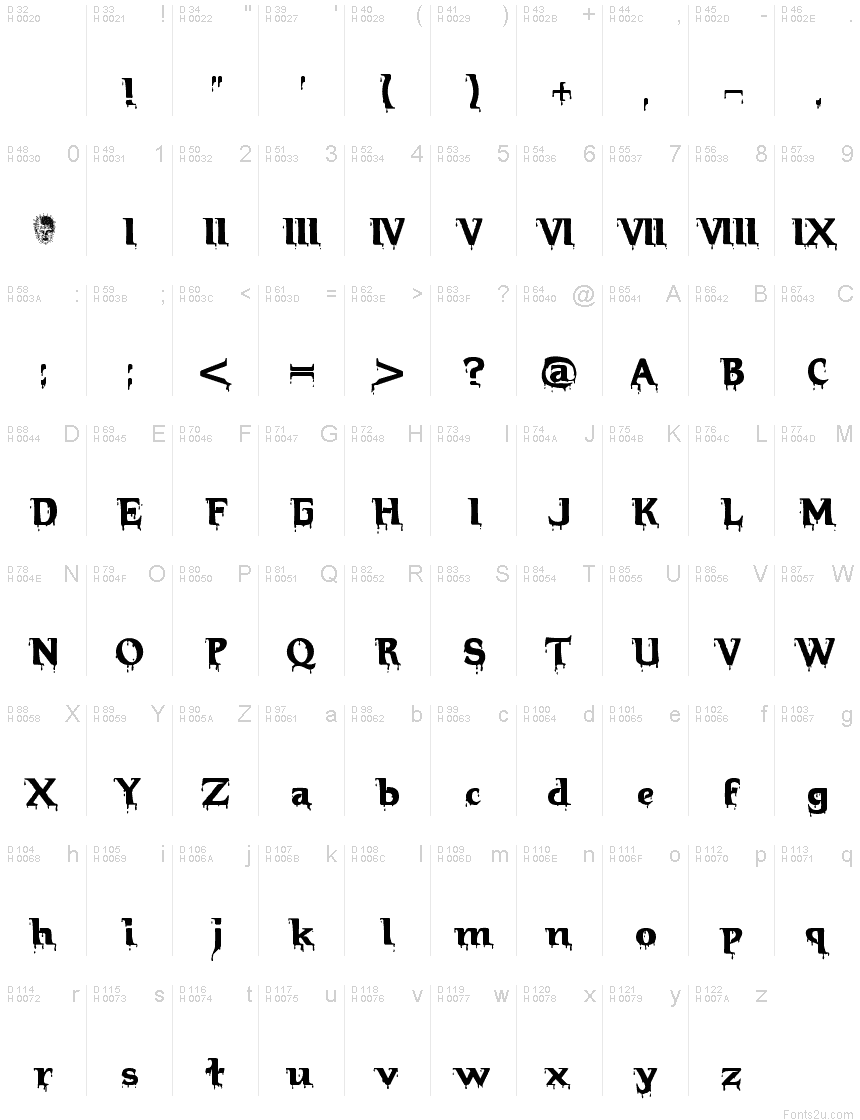
Hellraiser Bloody
Hellraiser Bloody font by Thomas W. Otto is a free scary display typeface that looks like its letters were painted in thick, dripping ink. Heavy, irregular shapes sag into glossy “pools” and hanging droplets, giving every word a wet, freshly-splattered feel. The spacing stays tight enough to read at a glance, while the blobby silhouettes keep things unsettling and theatrical.
This free font shines on horror movie posters, Halloween party flyers, haunted house signage, creepy game titles, and dark book or album covers. Use Hellraiser Bloody large and bold so the drips and splashes really register, then pair it with a clean sans serif for body text to keep everything legible. The result is a gritty, cinematic look that instantly sets a blood-chilled mood.